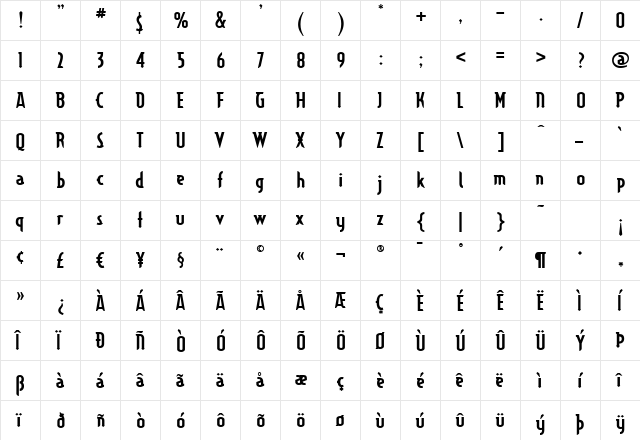
Typographiction2.0 B Regular Font Preview
Typographiction2.0 B Regular
Typographiction2.0 B Regular Font Details
Design Context for Typographiction2.0 B Typeface
Typographiction2.0 B offers clean, dependable letterforms without strong stylistic allegiance, making it a practical choice for designers who need flexibility.